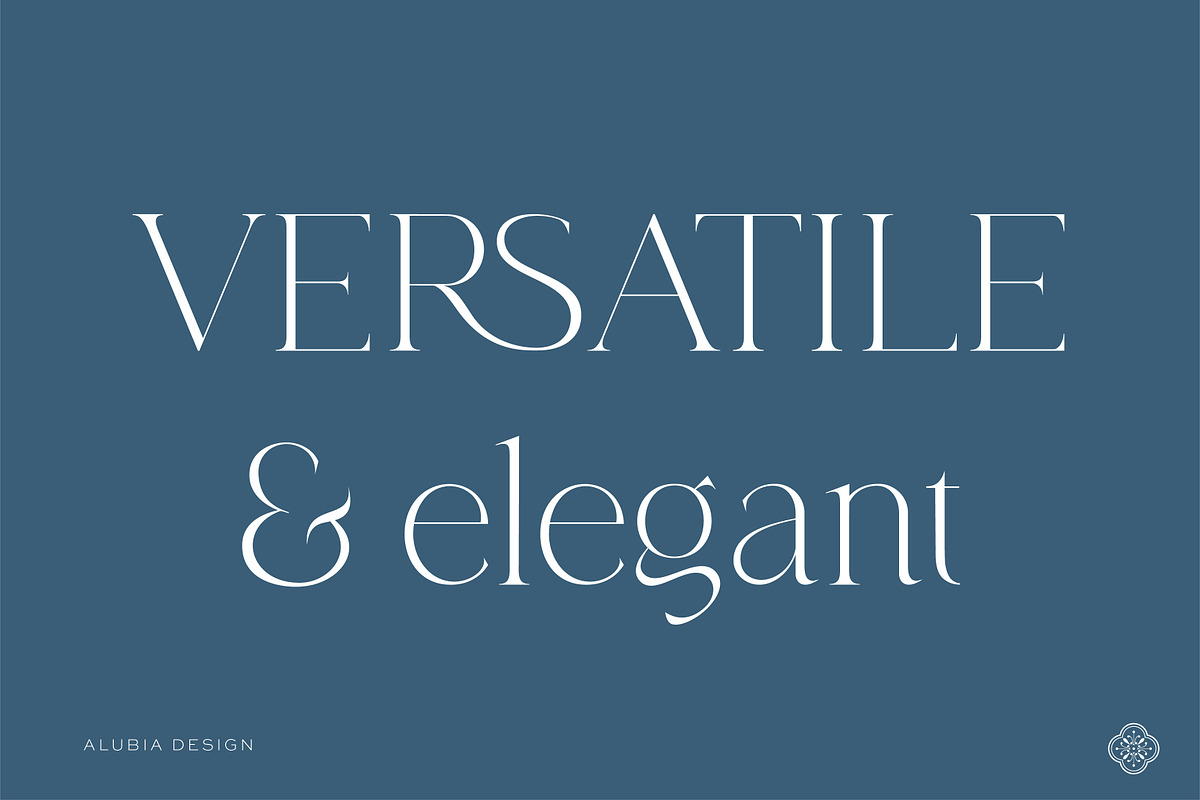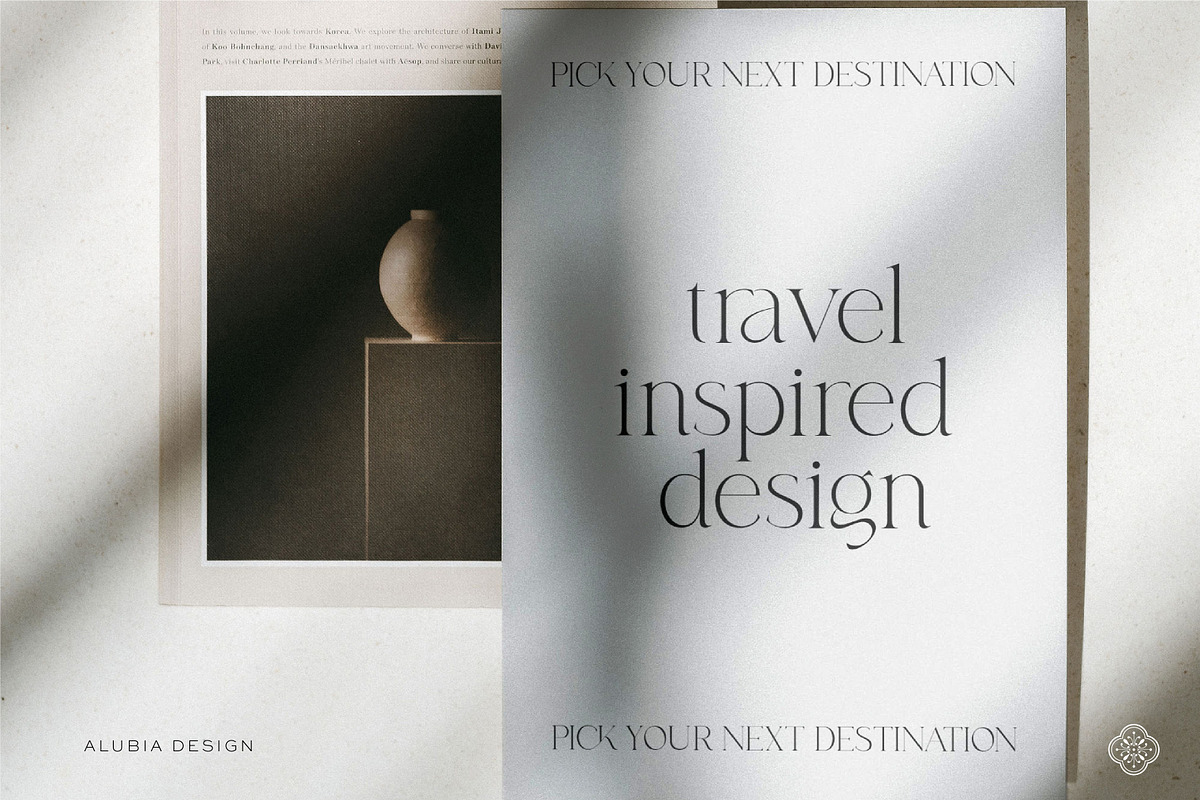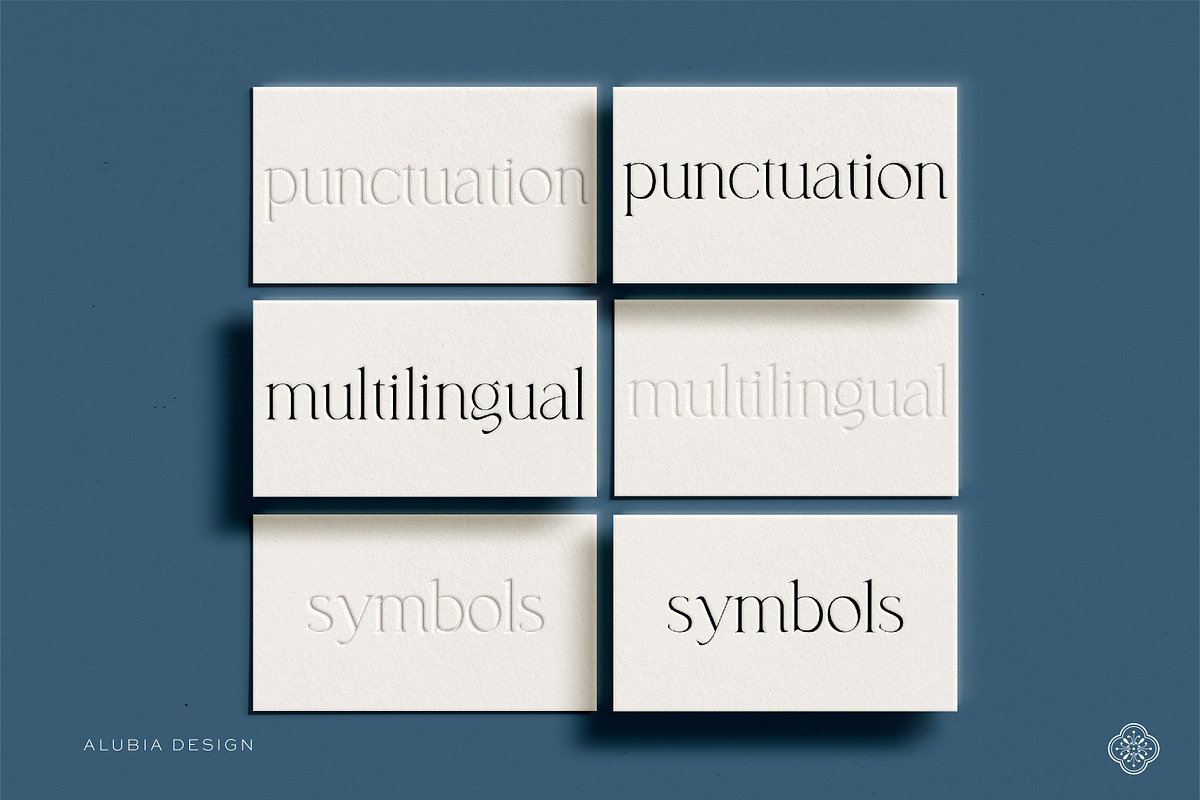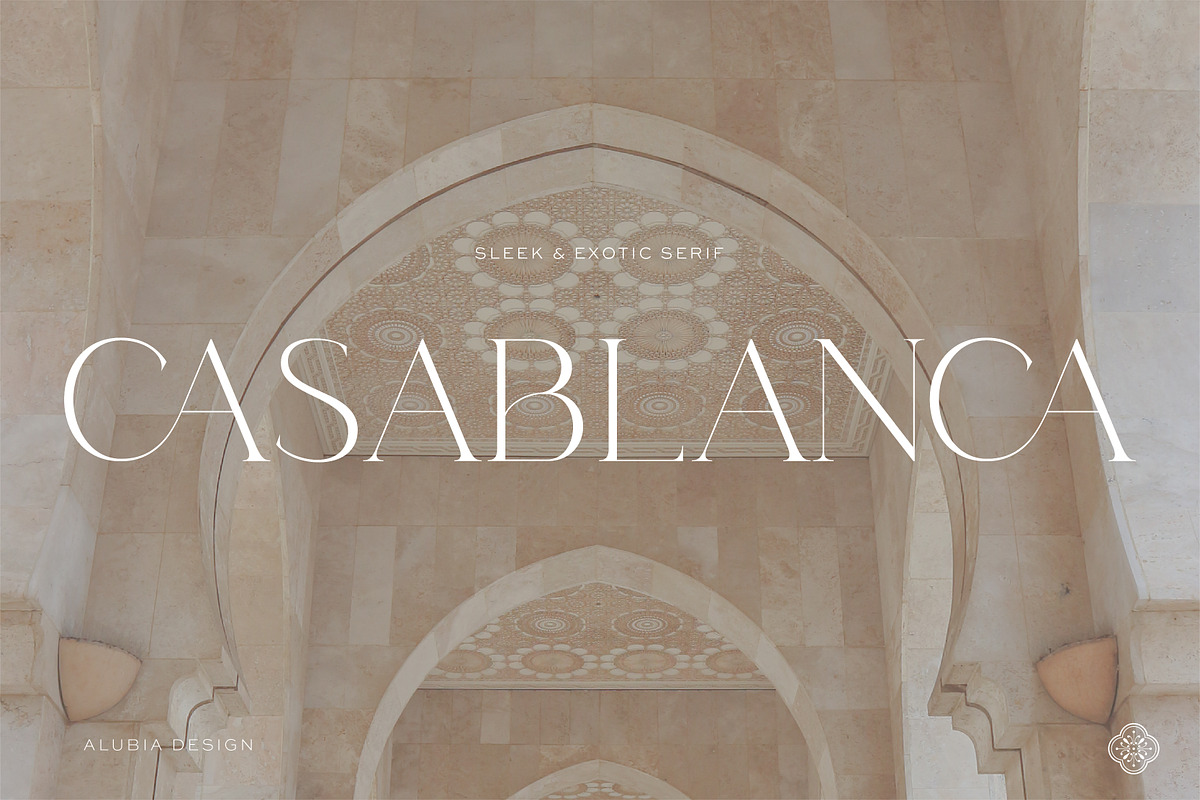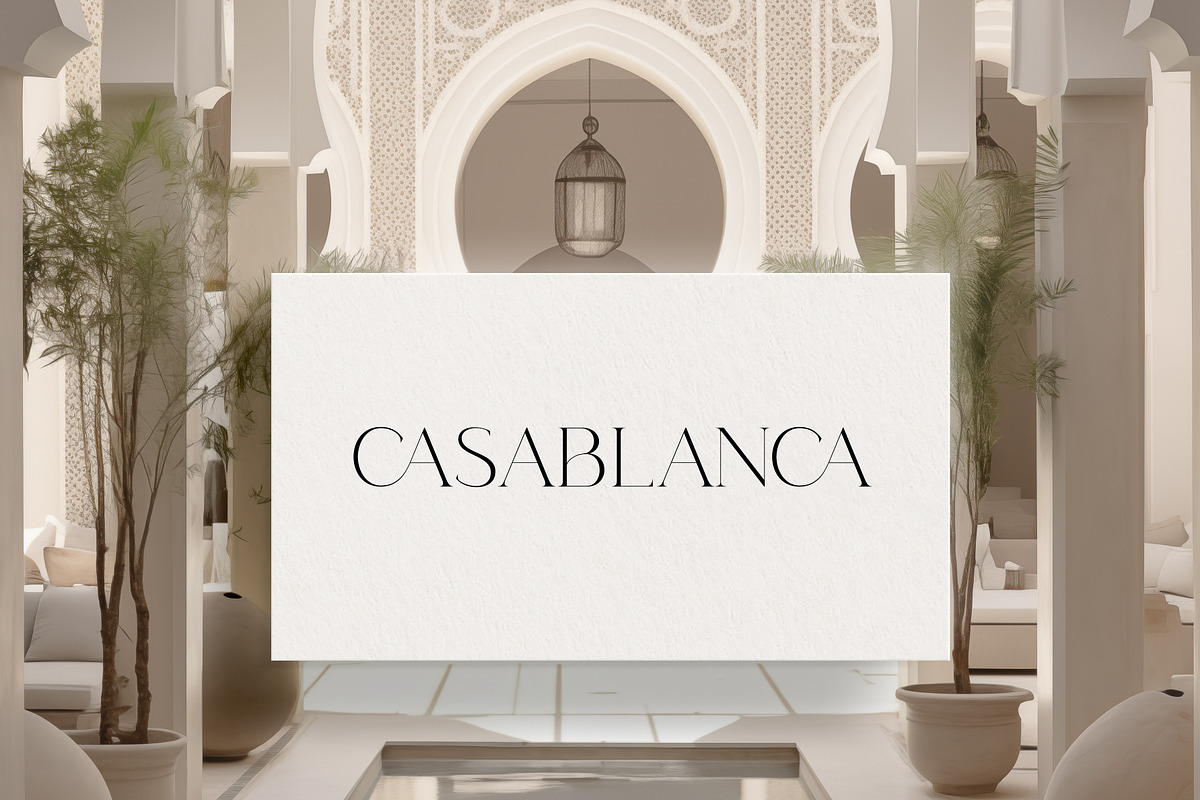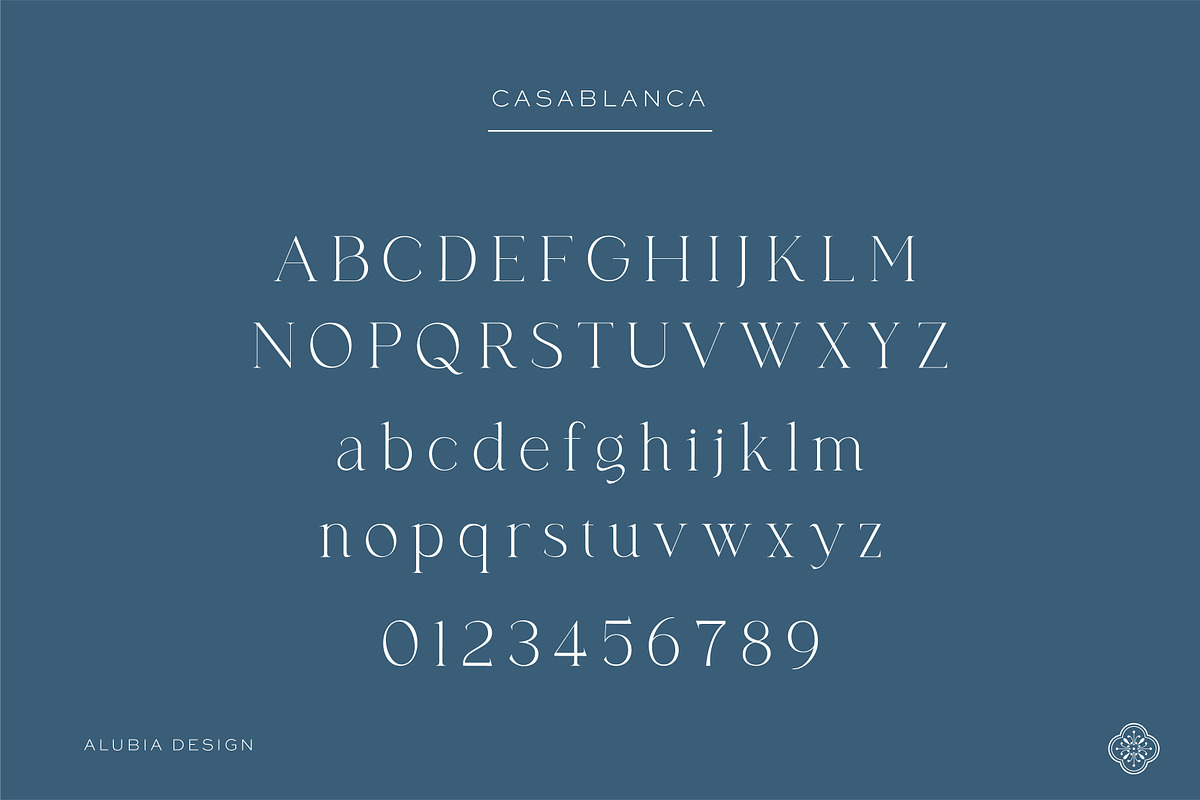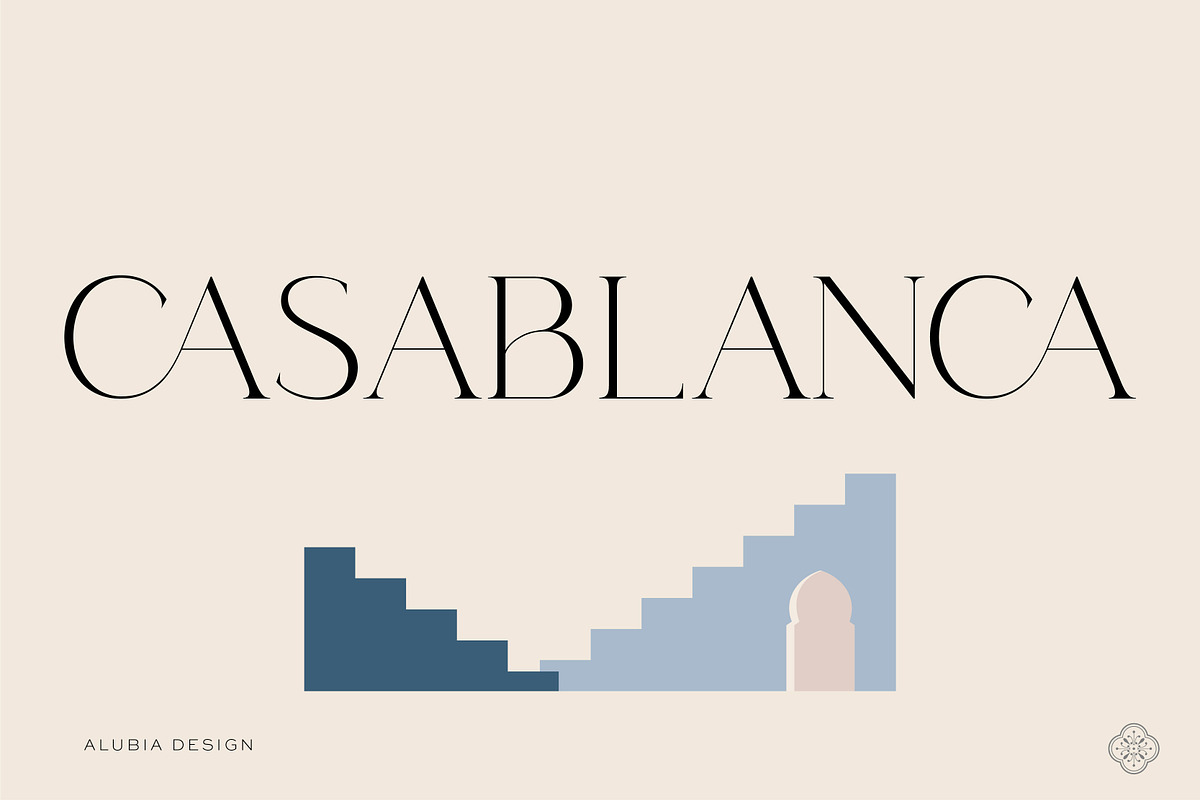
Casablanca - Sleek & Exotic Serif
Introducing 'CASABLANCA' - a stunning typeface that combines the sleek and exotic characteristics of a serif font with beautifully crafted ligatures, making it an ideal choice for creating elegant and sophisticated designs.
- Uppercase & ligature
- Lowercase letters & ligature
- Multilingual characters